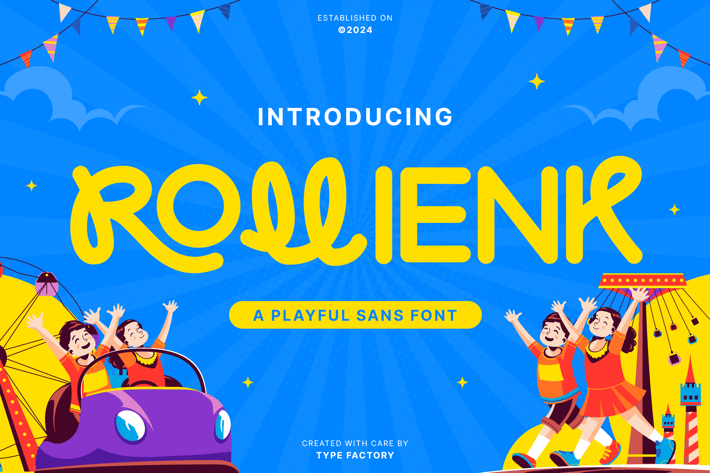
Rollienk - Playful Sans Font
Rollienk is a delightful playful sans font that exudes charm and fun. With its rounded edges and whimsical letterforms, this typeface is perfect for children’s designs, playful branding, invitations, and any project that aims to evoke joy and creativity. Rollienk's friendly appearance makes it versatile for both print and digital applications, ensuring your message is communicated with warmth and enthusiasm. Whether you're crafting eye-catching headlines or cheerful graphics, Rollienk brings a lighthearted touch to your creative endeavors.